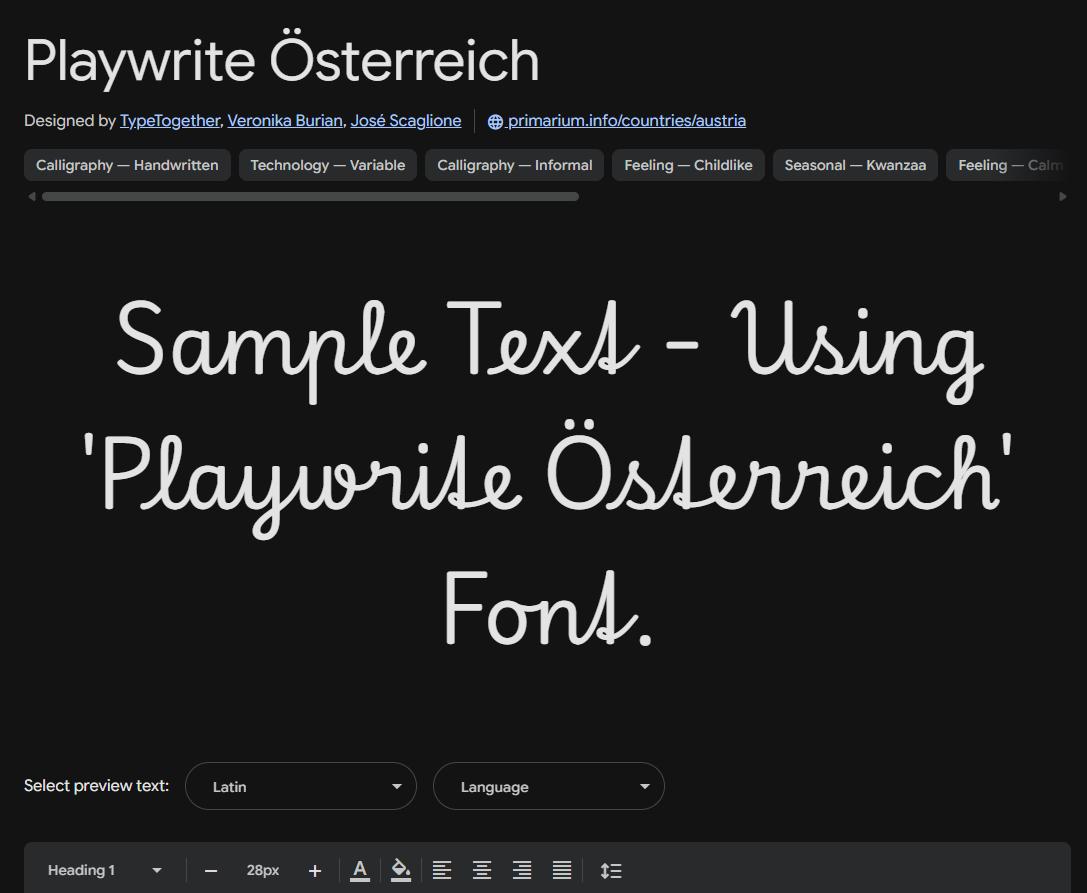
Playwrite Österreich, an innovative variable font family engineered by TypeTogether under the creative direction of Veronika Burian and José Scaglione, redefines pedagogical typography by digitizing the rhythmic nuances of Austrian school script through a sophisticated dual-axis interpolation system. By leveraging two distinct variable axes to modulate stroke weight and slant, the typeface offers unparalleled fluidity in rendering manual calligraphic ductus within a digital environment, ensuring that the anatomical structure of each glyph adheres to specific regional educational standards while maintaining high-performance screen legibility. This synthesis of historical cursive tradition and advanced OpenType functionality allows for a dynamic typographic experience where the fluidity of handwriting meets the technical precision of modern variable font technology, optimizing semantically rich content for both instructional and aesthetic applications.
The Playwrite Österreich font family represents a transformative shift in educational typography, utilizing advanced variable font technology to bridge the gap between rigid digital formats and the organic fluidity of upright, informal calligraphy. By distilling the nuances of a handwritten Austrian school script into a responsive design system, the typeface oscillates between a calm, childlike simplicity and a loud, rugged texture that defies traditional script limitations. Its playful yet vintage aesthetic provides a semantically rich environment for diverse narratives, from happy, celebratory Kwanzaa materials to structured instructional content. This versatility allows designers to modulate the typeface's weight and slant, ensuring that every character maintains its calligraphic integrity while achieving a modern, high-performance output that feels both nostalgic and fundamentally innovative.
While Playwrite Österreich represents a pinnacle of variable font technology designed by Veronika Burian and José Scaglione to capture the fluid pedagogical standards of Austrian primary education, its calligraphic DNA makes it fundamentally unsuitable for safety-critical industrial interfaces and high-density financial reporting where rapid-fire legibility and character disambiguation are mission-critical. The typeface's two-axis variability, though sophisticated, prioritizes the rhythmic ligatures and slanted cursivity of school-hand models, which introduces excessive cognitive load in high-stress environments like medical dosage labeling or aerospace instrumentation. Furthermore, the inherent baseline irregularities and the organic flow of its script glyphs conflict with the rigid pixel-grid requirements of minimalist UI/UX design, making it an inappropriate choice for high-stakes legal documentation or large-scale architectural wayfinding where the clarity of a standardized sans-serif is required to meet strict accessibility compliance and international legibility benchmarks.
Playwrite Österreich is a school script typeface based on the primary education writing standards of Austria, featuring a clean and rhythmic cursive flow. The design incorporates specific pedagogical stroke endings and midline heights that adhere to the Österreichische Schulschrift guidelines for legibility and motor skill development.
Yes, Playwrite Österreich is released as a variable font, allowing for fluid adjustments across a specific design axis. It utilizes a weight axis ranging from 100 to 400, providing granular control over stem thickness via the font-variation-settings CSS property.
This font is ideal for educational software, children's book publishing, and branding projects that require a personal, handwritten touch. Its geometric consistency and high x-height make it particularly effective for literacy tools targeting early childhood development through digital interfaces.
The typeface is engineered with sophisticated OpenType features to ensure seamless connections between individual glyphs, mimicking natural handwriting. Extensive use of the contextual alternates (calt) feature ensures that entry and exit strokes dynamically adjust based on neighboring character pairs to maintain a continuous baseline flow.
Effective pairings include clean sans-serifs or sturdy slabs that provide a structural contrast to the fluid nature of the script. Combining it with a humanist sans-serif like Roboto or Open Sans creates a balanced typographic hierarchy, leveraging high-contrast stroke weights for improved visual accessibility.
Playwrite Österreich is specifically localized to include the character forms and diacritics used in the Austrian educational system. The character set includes specialized glyph variations for the letter 'ß' and specific capital letter constructions that differ from the Deutschland or Nederland versions of the Playwrite family.
While designed for digital screens, the font maintains high clarity when rendered in high-resolution print environments. The vector paths are optimized with a high point density to prevent anti-aliasing artifacts on Retina displays and to ensure crisp edges during high-DPI offset printing processes.
The family offers a range of weights within its variable format, covering ExtraLight, Light, and Regular variations. Though it lacks a traditional Black weight, its 400-weight master is tuned to maintain the integrity of thin connecting hairlines without losing legibility at smaller scales.
It can be used for short passages of body text in primary education materials, though it is primarily optimized for headers and instructional prompts. Due to the inherent complexity of script connections, it is best utilized at sizes above 16px to prevent the optical merging of ascenders and descenders in dense paragraphs.
The Österreich version is distinguished by specific uppercase letter shapes and terminal flourishes that match Austrian national curriculum requirements. Unlike the Playwrite Italia or France variants, the Austrian version features unique ductus patterns in characters like the lowercase 'f' and 'z', reflecting regional calligraphic traditions.